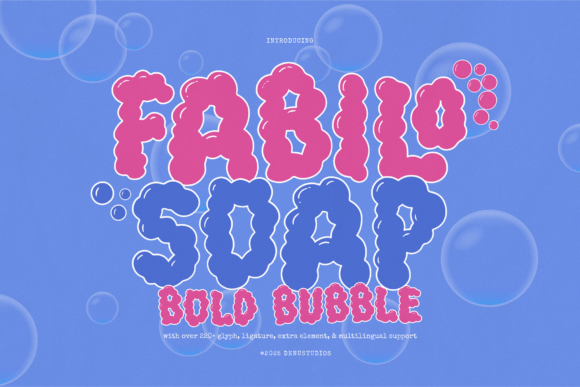
Fabilo Soap Font: The Perfect Choice for Fun and Playful Designs
Are you looking for a font that can add a touch of playfulness and fun to your designs? Look no further than the Fabilo Soap Font. This fun and bubbly display font is perfect for kids’ designs, branding, packaging, posters, and creative projects. In this article, we’ll take a closer look at the Fabilo Soap Font and explore its features, benefits, and uses.
What is Fabilo Soap Font?
Fabilo Soap is a fun and bubbly display font with a playful, bold style. Its soft, rounded letterforms mimic the look of soap bubbles, making it perfect for designs that require a lighthearted and whimsical touch. The font is designed to be highly legible and versatile, making it suitable for a wide range of applications.
Features of Fabilo Soap Font
The Fabilo Soap Font has several features that make it an excellent choice for designers. Some of its key features include:
- Playful and bold style: The font has a fun and playful style that is perfect for kids’ designs, branding, and packaging.
- Soft and rounded letterforms: The font’s soft and rounded letterforms give it a friendly and approachable feel.
- Highly legible: The font is designed to be highly legible, making it easy to read in a variety of sizes and applications.
- Versatile: The font is versatile and can be used in a wide range of applications, from posters and flyers to branding and packaging.
Benefits of Using Fabilo Soap Font
There are several benefits to using the Fabilo Soap Font in your designs. Some of the benefits include:
- Adds a touch of playfulness: The font adds a touch of playfulness and fun to your designs, making them more engaging and appealing.
- Perfect for kids’ designs: The font is perfect for kids’ designs, including children’s books, posters, and packaging.
- Great for branding and packaging: The font is also great for branding and packaging, as it can help to create a fun and playful brand identity.
- Easy to read: The font is easy to read, making it perfect for designs that require a high level of legibility.
Uses of Fabilo Soap Font
The Fabilo Soap Font can be used in a wide range of applications, including:
- Kids’ designs: The font is perfect for kids’ designs, including children’s books, posters, and packaging.
- Branding and packaging: The font is great for branding and packaging, as it can help to create a fun and playful brand identity.
- Posters and flyers: The font is perfect for posters and flyers, as it can help to grab attention and add a touch of playfulness.
- Creative projects: The font is also great for creative projects, such as art projects, crafts, and DIY projects.
Tips for Using Fabilo Soap Font
Here are some tips for using the Fabilo Soap Font:
- Use it for headlines: The font is perfect for headlines, as it can help to grab attention and add a touch of playfulness.
- Use it for kids’ designs: The font is perfect for kids’ designs, including children’s books, posters, and packaging.
- Experiment with different colors: The font looks great in a variety of colors, so experiment with different colors to find the one that works best for your design.
- Use it with other fonts: The font can be used with other fonts to create a unique and interesting design.
In conclusion, the Fabilo Soap Font is a fun and playful display font that is perfect for kids’ designs, branding, packaging, posters, and creative projects. Its soft and rounded letterforms mimic the look of soap bubbles, making it a great choice for designs that require a lighthearted and whimsical touch. With its highly legible and versatile design, the Fabilo Soap Font is a great addition to any designer’s font collection.